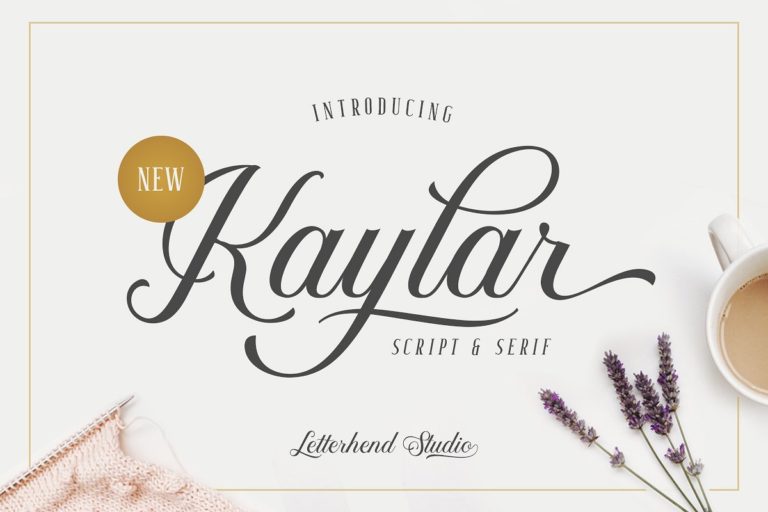
Kaylar Script Font
A new calligraphy font. It will be a perfect choice for your work. Add it to your fonts collection now! Introducing Kaylar Font. Kaylar is a pair of elegant typeface consist of script and serif font. The beauty script and the condensed serif perfectly matched and bring a luxury and classy feel. What makes it even more special is its unique opentype feature which allows you to enable the swash ornament in a very simple way.